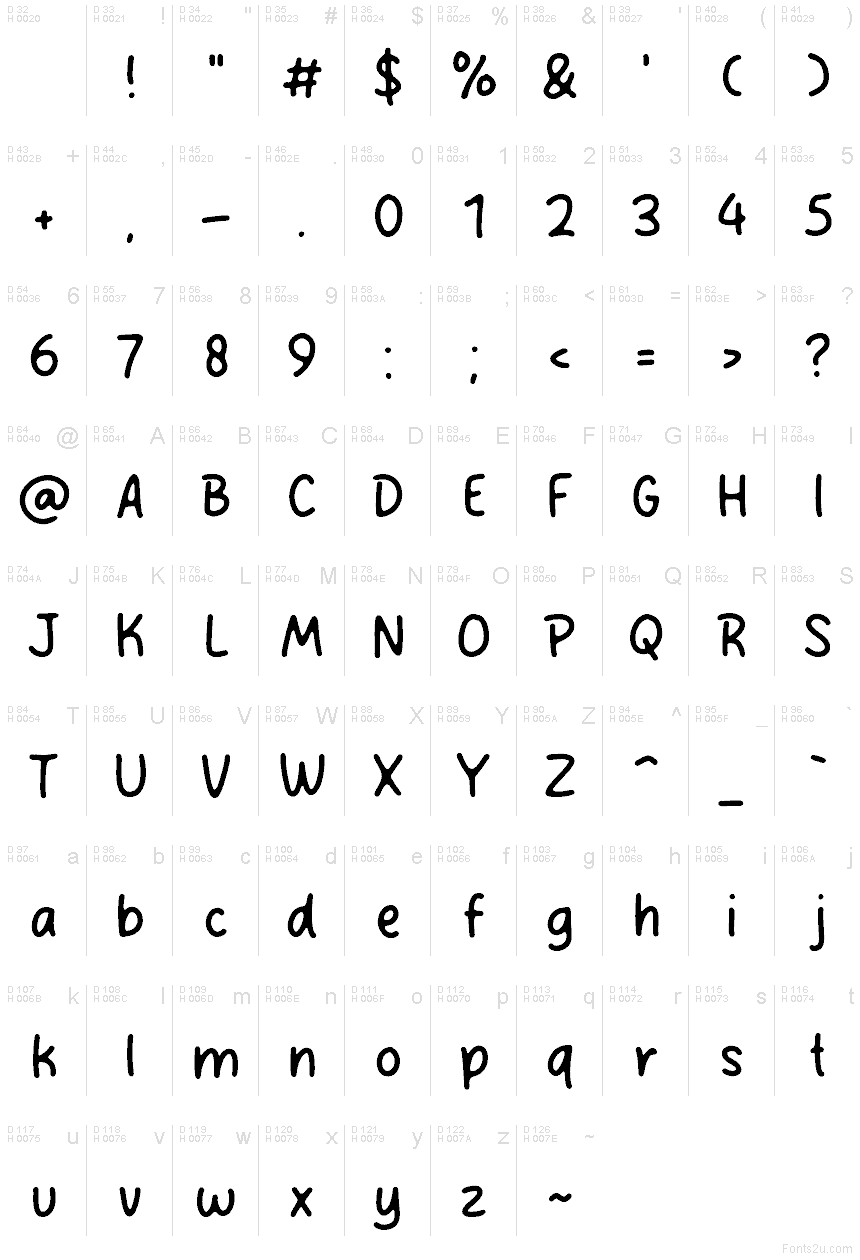
Presso Matcha
Presso Matcha font designed by Origin Type is a casual and approachable font with rounded letters and smooth transitions. Each character has been handwritten which gives it a unique style, yet it remains evenly proportioned for clear legibility.